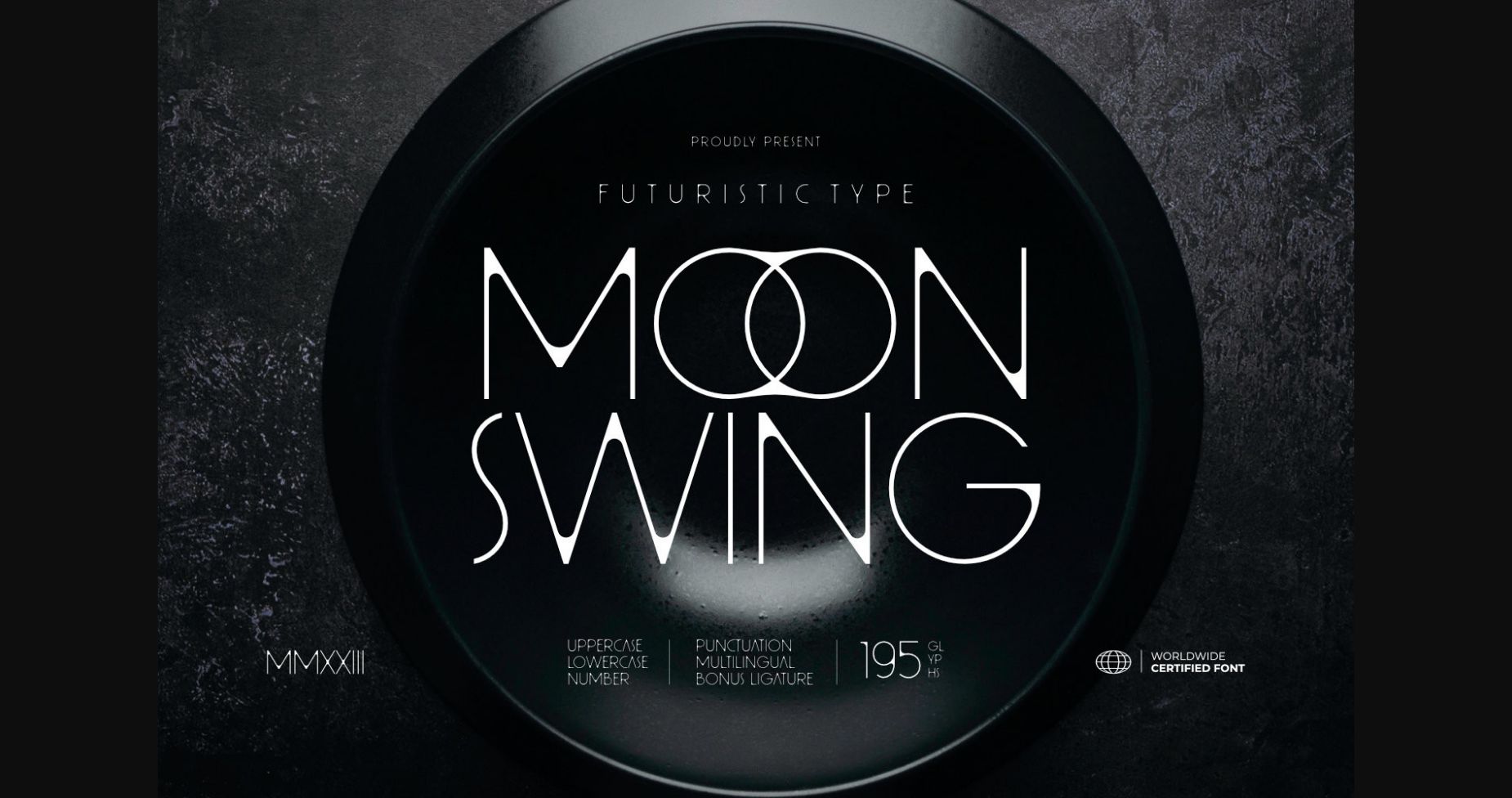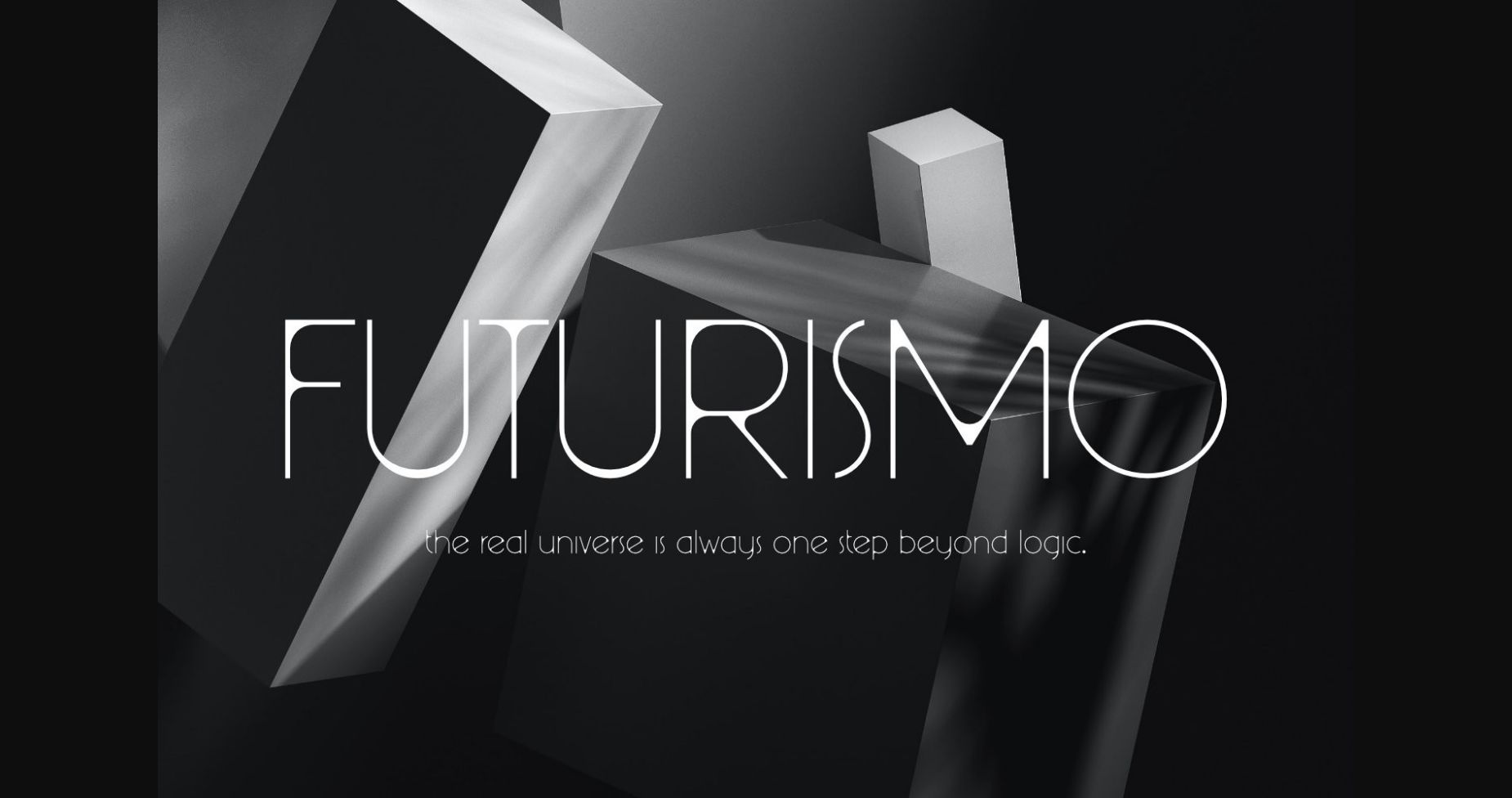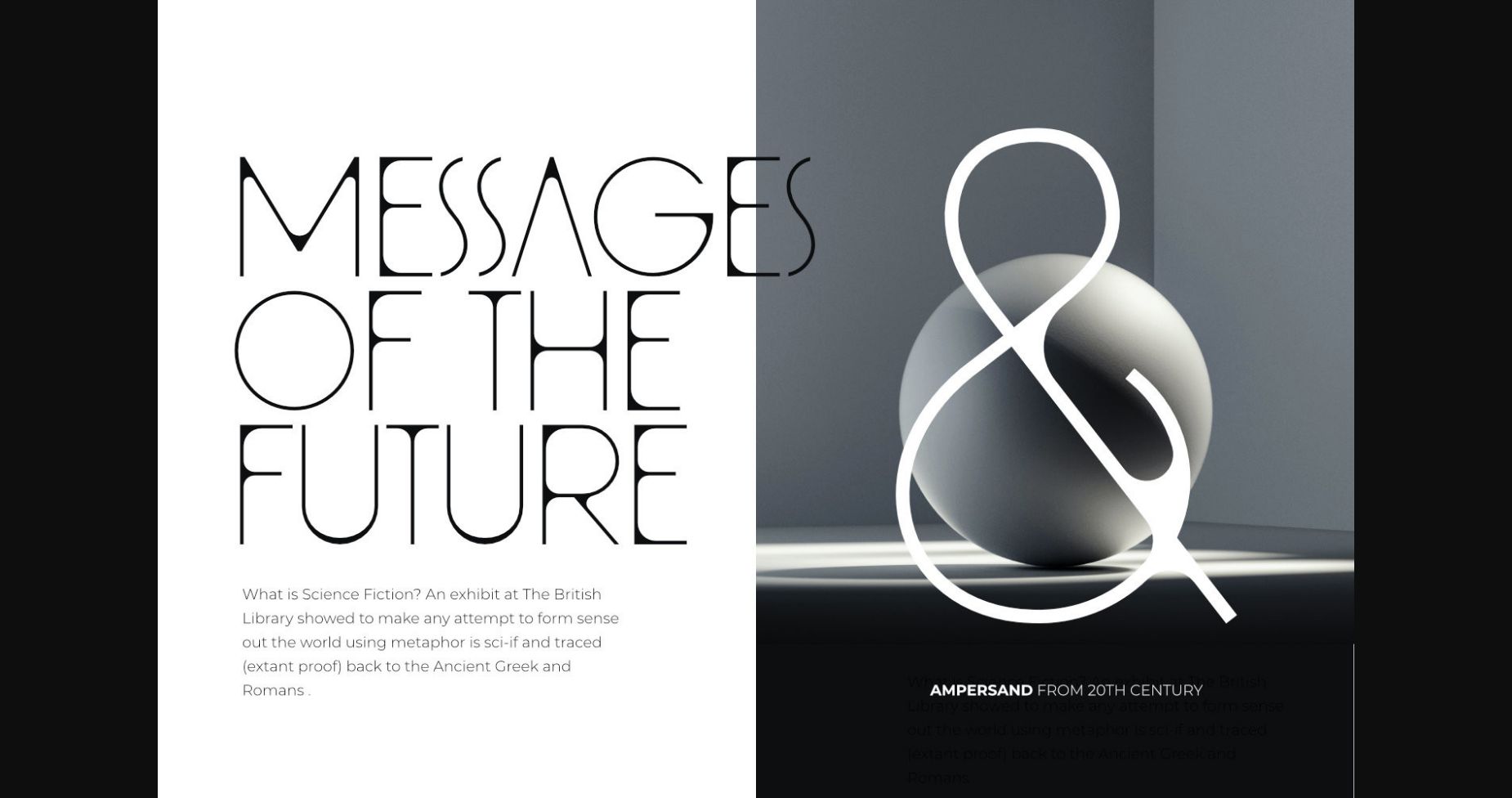
About Moon Swing Font
Moon Swing is a thin-minimalist style of typography that embodies both modernism and futurism. The simplicity and clean forms combined with the decorative curves convey a futuristic aspect that represents the future. This typeface is perfect for an elegant logo, branding, fashion brand, luxury brand, layout magazine, beauty product, packaging product, quotes, or simply as a stylish text overlay to any background image.